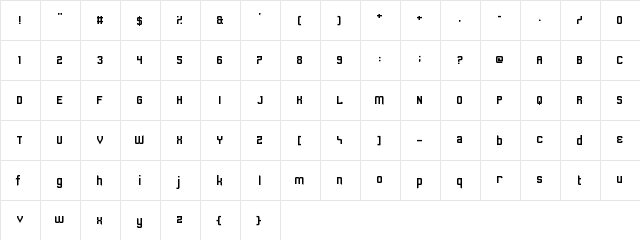
Sawchain Regular
| Designer | Andrew McCluskey |
Design Context for Sawchain Typeface
Sawchain offers clean, dependable letterforms without strong stylistic allegiance, making it a practical choice for designers who need flexibility.